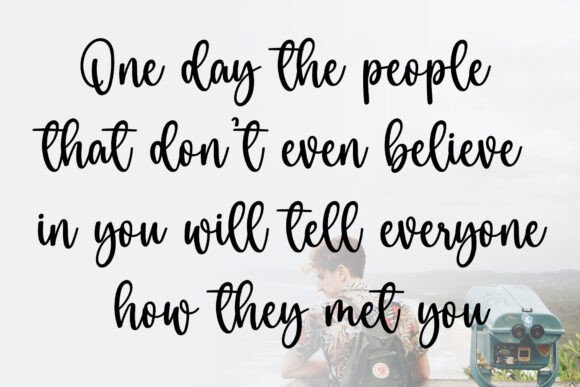
Introducing Barbie Pink Font: Elevate Your Design with Timeless Elegance
In the world of typography, few fonts have made a lasting impression like Barbie Pink. This stylish handwritten font has captured the hearts of designers and artists alike with its contemporary atmosphere and impeccable form. Inspired by timeless classic calligraphy, Barbie Pink is the perfect addition to any design project, offering a touch of sophistication and elegance.
The Story Behind Barbie Pink Font
Barbie Pink is more than just a font – it’s a design statement. With its roots in classic calligraphy, this font has been crafted to bring a sense of balance and variation to your projects. The creators of Barbie Pink have meticulously designed each letter to ensure that it not only looks beautiful on its own but also flows seamlessly with other letters, making it perfect for a wide range of applications.
Key Features of Barbie Pink Font
- Contemporary yet Classic: Barbie Pink strikes the perfect balance between modern style and timeless elegance, making it versatile for various design needs.
- Handwritten with Precision: Each letter in the Barbie Pink font is carefully crafted to provide a natural, handwritten feel that adds a personal touch to your designs.
- Balanced and Varied: The font’s design ensures that it remains balanced and varied, making it suitable for both short phrases and longer texts.
- Inspired by Timeless Classic Calligraphy: Barbie Pink draws inspiration from traditional calligraphy, giving it a sophisticated and refined appearance.
Applications of Barbie Pink Font
The versatility of Barbie Pink makes it an excellent choice for a variety of design projects. Here are some of the top applications where Barbie Pink truly shines:
- Branding and Logos: Create memorable brand identities with Barbie Pink, adding a touch of elegance and sophistication to your logo designs.
- Invitations and Stationery: Whether it’s wedding invitations, birthday cards, or professional stationery, Barbie Pink adds a classy and personalized touch.
- Digital Media: Enhance your social media posts, website headers, and digital advertisements with the stylish and contemporary feel of Barbie Pink.
- Packaging Design: Stand out on store shelves with product packaging that features the beautiful and distinctive Barbie Pink font.
- Art and Illustration: Use Barbie Pink to add quotes, captions, or text elements to your illustrations and artwork, bringing them to life with a touch of elegance.
Why Choose Barbie Pink Font?
With so many fonts available, why should Barbie Pink be your choice? Here are some compelling reasons:
- Unique and Memorable: Barbie Pink’s distinctive style ensures that your designs stand out and leave a lasting impression.
- Easy to Read: Despite its elegant and cursive nature, Barbie Pink remains highly legible, making it suitable for both headings and body text.
- Highly Versatile: From creative projects to professional applications, Barbie Pink adapts seamlessly to different design contexts.
- Timeless Appeal: Unlike trendy fonts that may quickly become outdated, Barbie Pink’s classic inspiration ensures it remains stylish for years to come.
How to Use Barbie Pink Font Effectively
To make the most of Barbie Pink, consider the following tips:
- Pair with Complementary Fonts: Combine Barbie Pink with clean, sans-serif fonts for contrast and visual interest.
- Adjust Letter Spacing: Fine-tune the kerning to ensure optimal readability and aesthetic appeal.
- Use in Headers and Titles: Barbie Pink shines in headings and titles, where its elegant style can be fully appreciated.
- Experiment with Colors: While Barbie Pink is synonymous with a vibrant pink hue, don’t be afraid to explore other colors that match your brand or design theme.
Barbie Pink font is a stylish and versatile addition to any designer’s toolkit. Its unique blend of contemporary style and classic calligraphy inspiration makes it perfect for a wide range of projects, from branding and invitations to digital media and packaging. With its balanced and varied design, Barbie Pink is sure to elevate your designs and leave a lasting impression on your audience.
FAQs About Barbie Pink Font
- What inspired the creation of Barbie Pink Font? Barbie Pink was inspired by timeless classic calligraphy, aiming to bring a touch of elegance and sophistication to modern design.
- Is Barbie Pink suitable for body text? While Barbie Pink excels in headings and titles, its readability in longer body text may vary. It’s best used for accentuating key points or adding style to shorter texts.